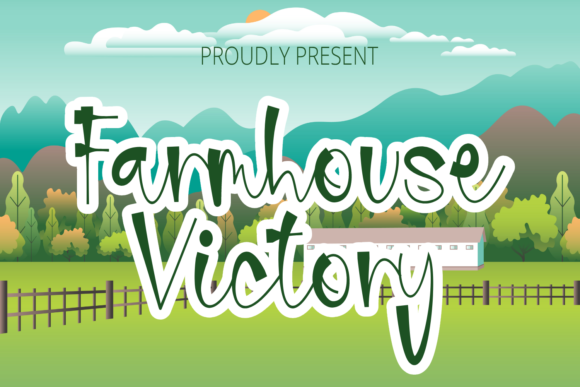
Immerse yourself in the charm of Farmhouse Victory, a display font crafted with meticulous attention to detail. With its warm and inviting aesthetic, this font exudes a sense of nostalgia and comfort, reminiscent of a cozy farmhouse nestled amidst rolling green hills. Whether you're a seasoned designer or just starting your creative journey, Farmhouse Victory is the perfect companion for projects that call for a touch of rustic elegance.
Step into a world of limitless possibilities, where Farmhouse Victory's captivating curves and playful strokes bring your words to life. This versatile font is a symphony of style and functionality, effortlessly adaptable to a wide spectrum of design concepts. From whimsical wedding invitations to heartfelt greeting cards, from eye-catching social media posts to captivating logos, Farmhouse Victory seamlessly blends timeless charm with modern appeal. Its versatility knows no bounds, making it the ideal choice for designers seeking a font that transcends trends and stands the test of time.
Unleash your creativity and let Farmhouse Victory be your muse. Its effortless flow and organic texture add a touch of authenticity to any project, inviting viewers to embark on a sensory journey. Imagine the delight of crafting personalized stationery adorned with your loved ones' names, rendered in the charming embrace of Farmhouse Victory. Enchanting posters and flyers adorned with this font will captivate audiences, leaving an indelible mark on their minds.
With Farmhouse Victory as your trusted companion, you'll discover a newfound joy in the art of digital expression. Its intuitive design and user-friendly features make it an absolute pleasure to work with. Whether you're a seasoned professional or just beginning your design adventure, Farmhouse Victory empowers you to effortlessly create captivating visuals that resonate with your audience.
Don't miss this opportunity to elevate your creative arsenal with Farmhouse Victory, the display font that embodies warmth, charm, and timeless elegance. Embrace the power of beautiful typography and watch your designs flourish with renewed vigor. Welcome Farmhouse Victory into your font family today and embark on a creative journey unlike any other.